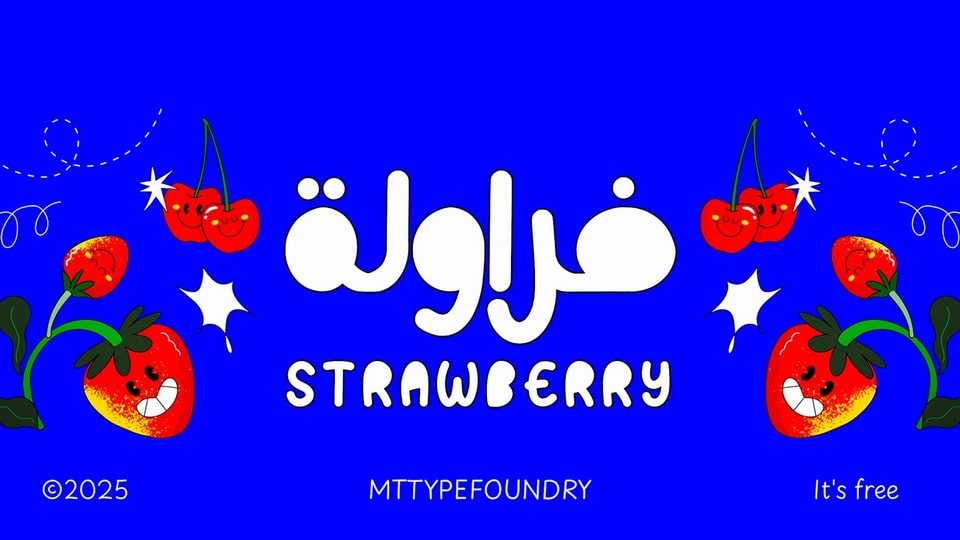
Download Strawberry font, a cute and cheerful hand-drawn typeface that bursts with sweetness and positivity. Its rounded, bouncy letterforms and smooth curves give it a playful, friendly personality
Designer: MT TYPE FOUNDRY